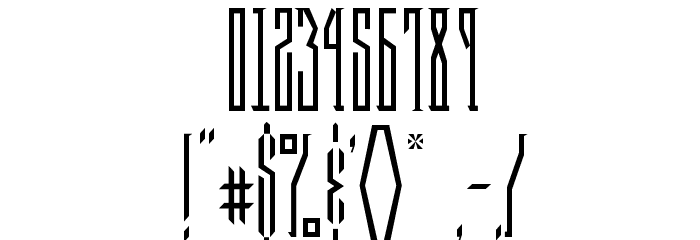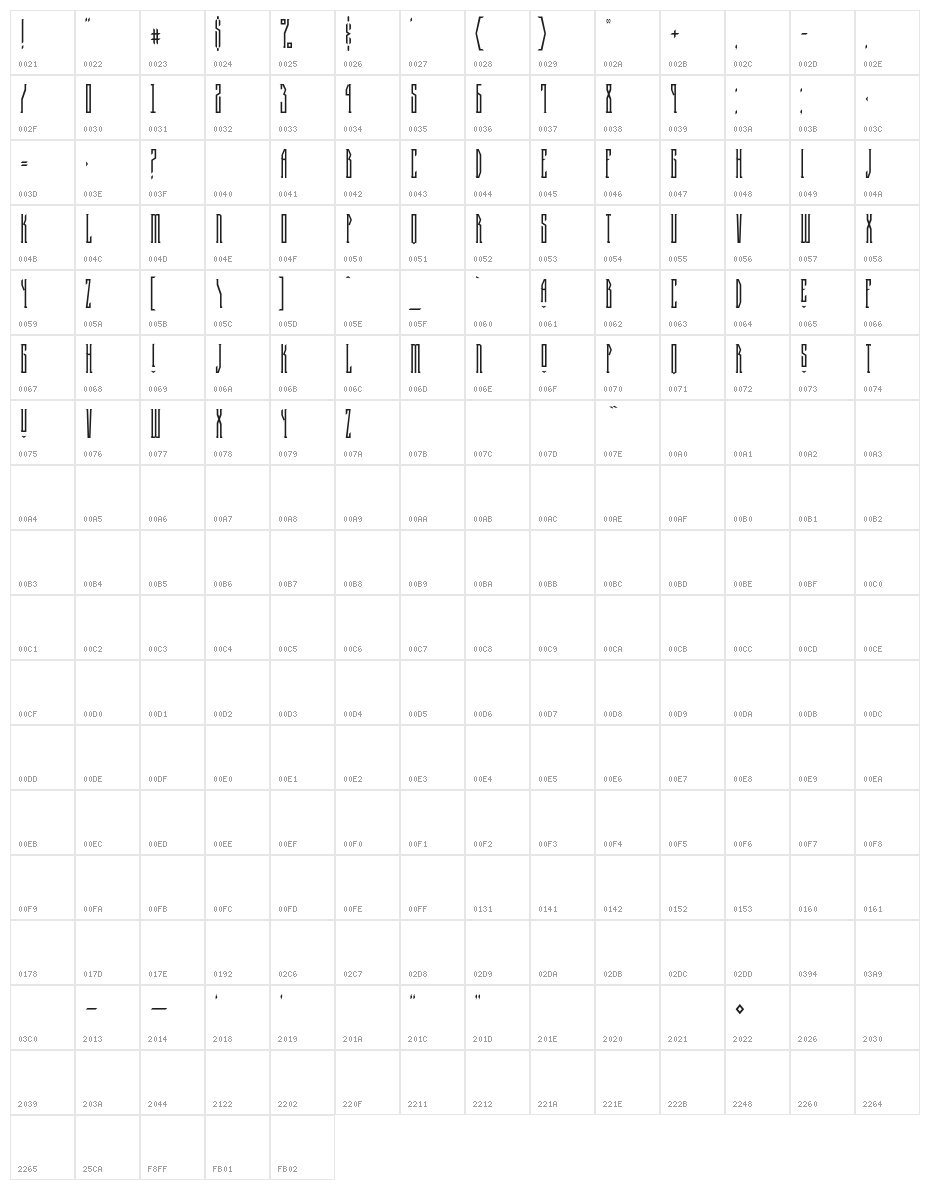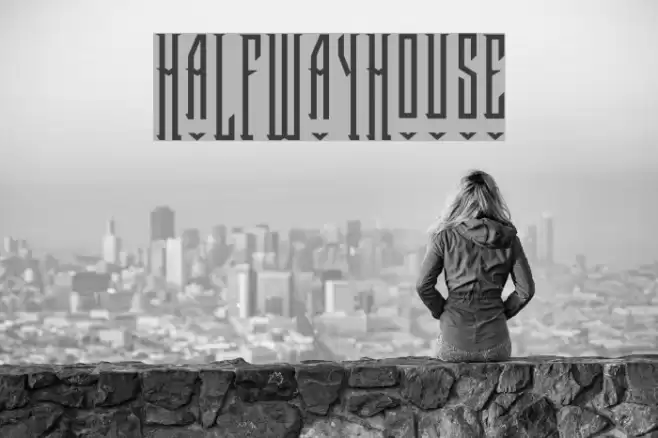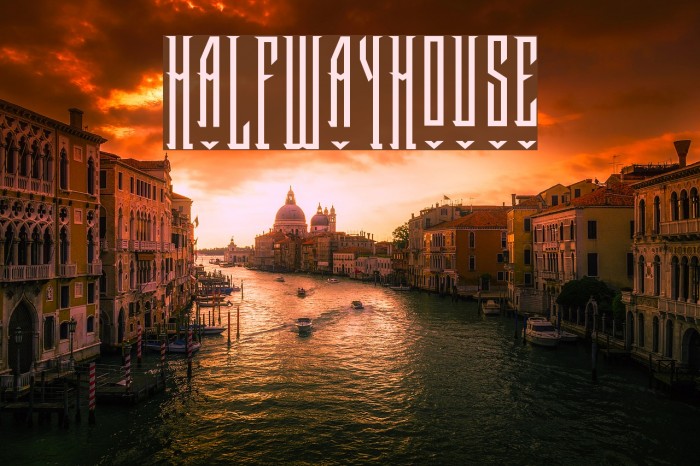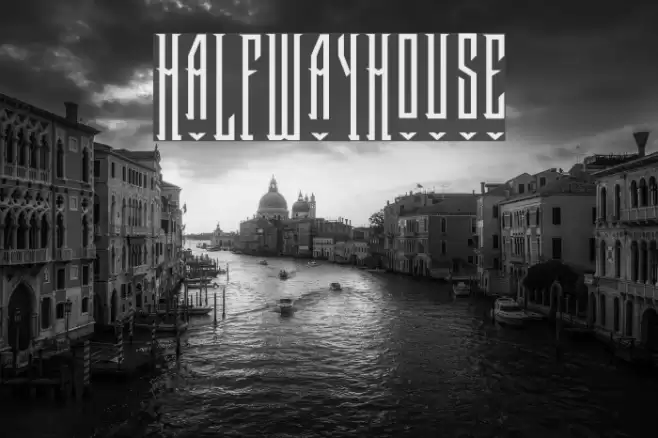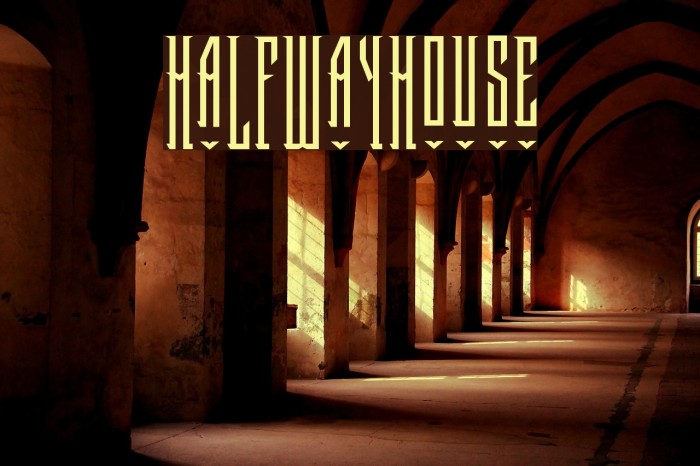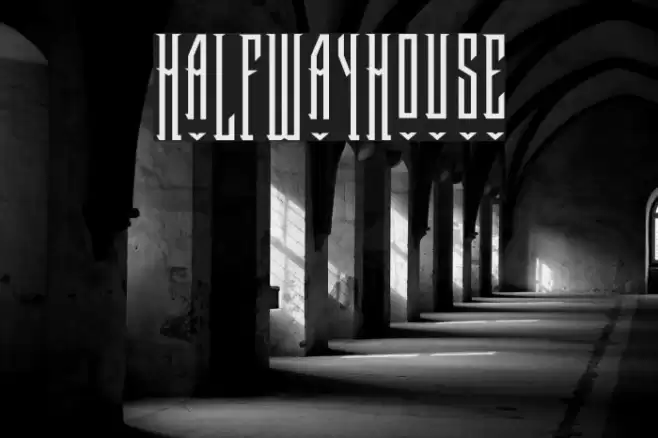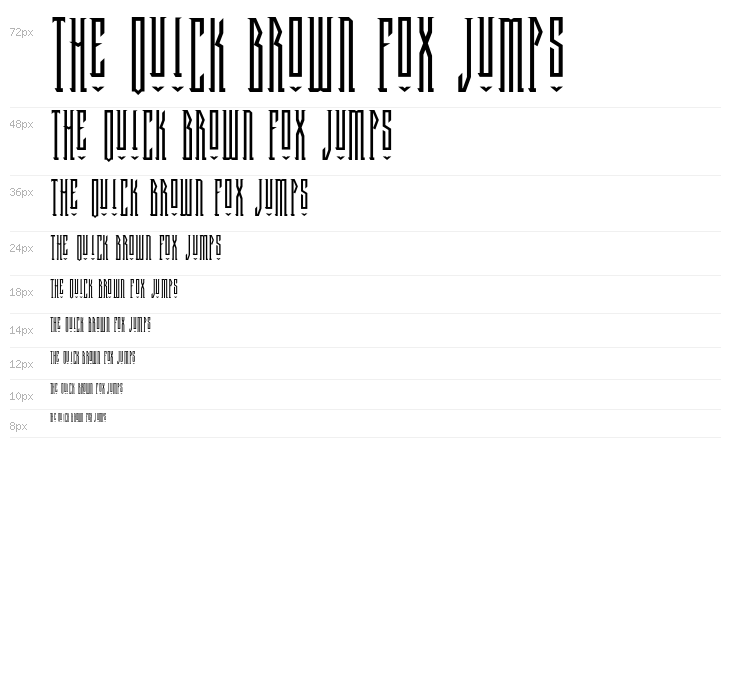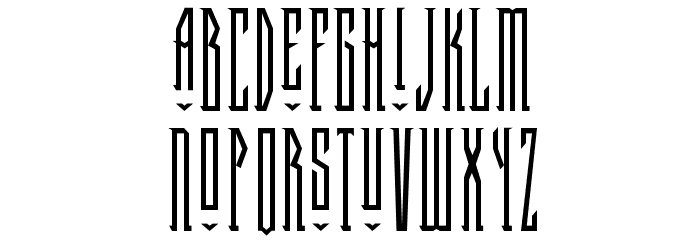
HalfwayHouse Font
HalfwayHouse Description
This font features a tall, narrow design with sharp, angular serifs that give it a distinctly modern and edgy appearance. The uppercase letters are particularly elongated, creating a dramatic and imposing look. The lowercase letters maintain the same narrow proportions, ensuring consistency throughout the typeface. Numbers and special characters follow the same design principles, with a focus on verticality and sharp angles. The overall aesthetic is bold and striking, making it suitable for attention-grabbing headlines or titles. The font's unique style is reminiscent of art deco influences, with a contemporary twist.
| Proposed Projects | Ideal for use in posters, album covers, branding, and editorial design where a bold statement is needed. |